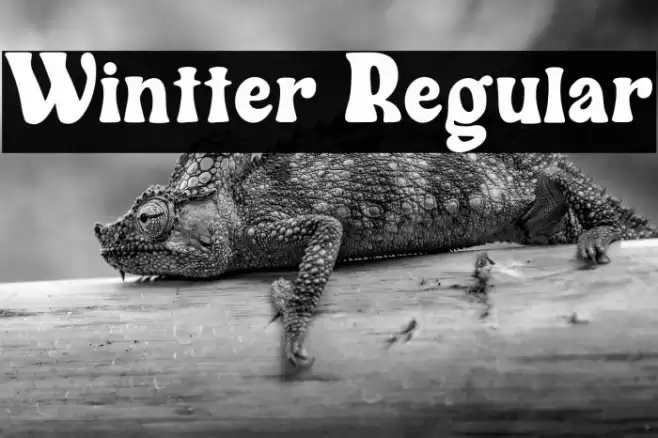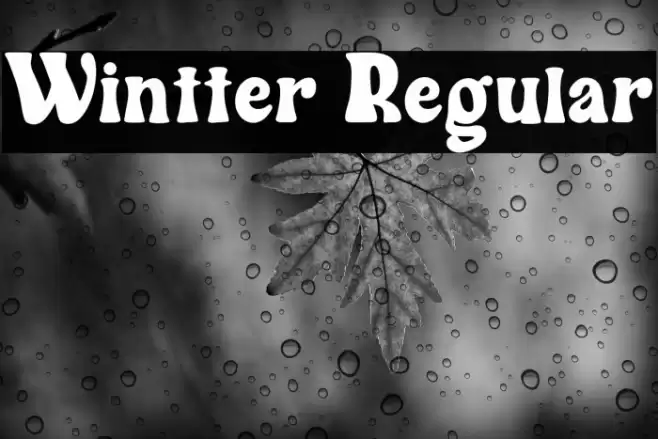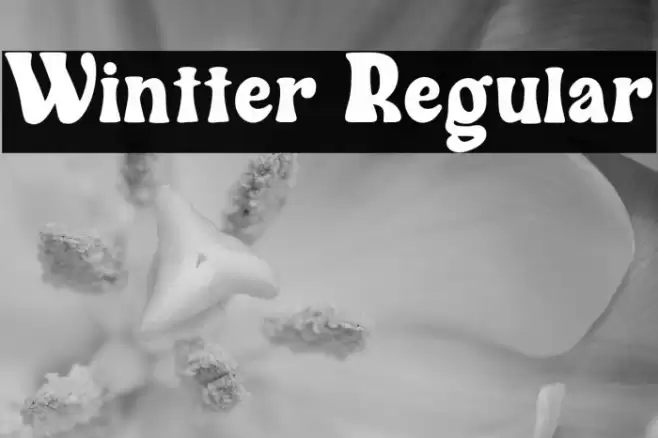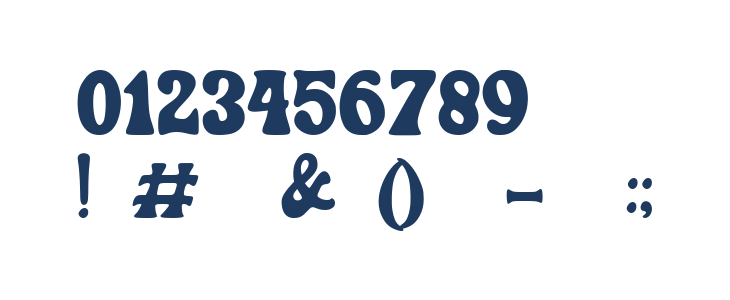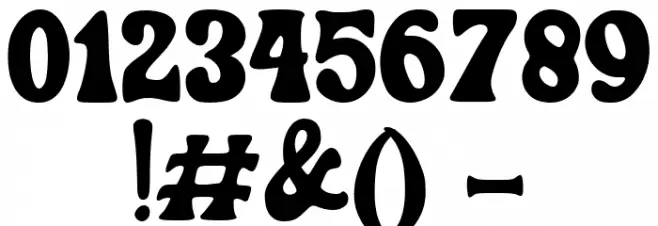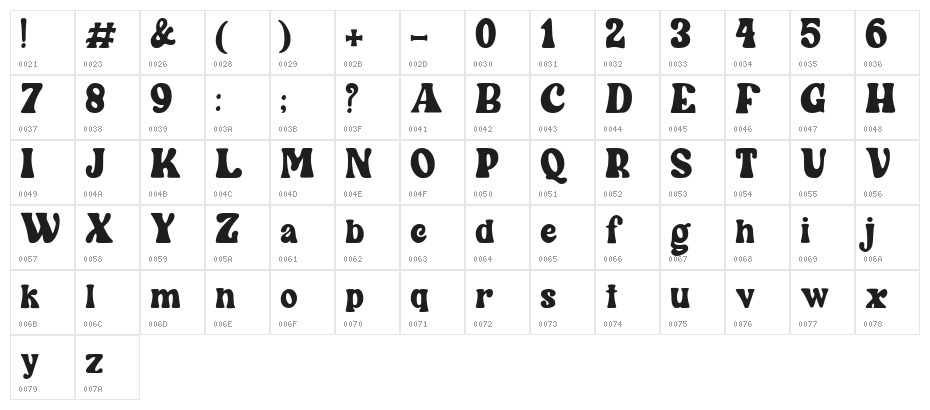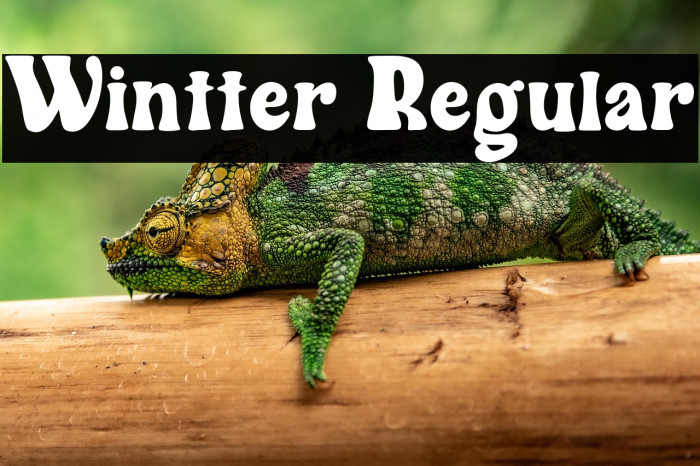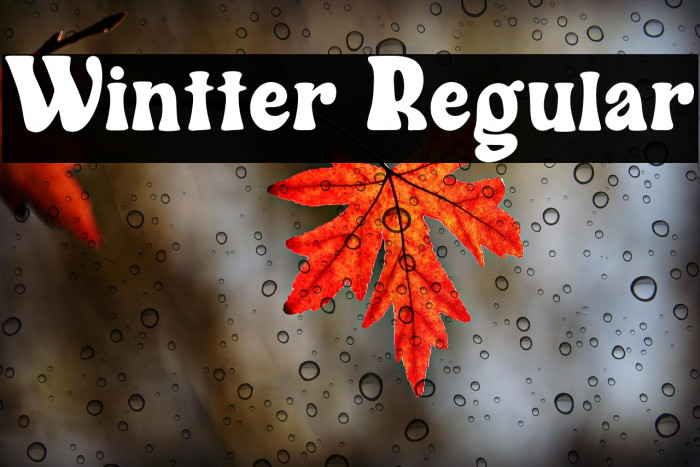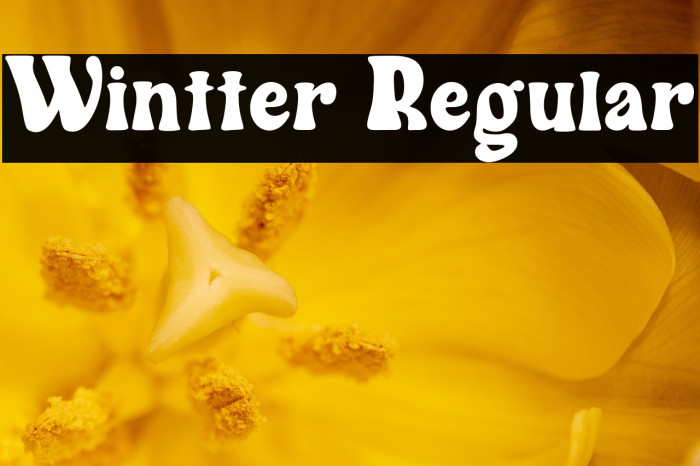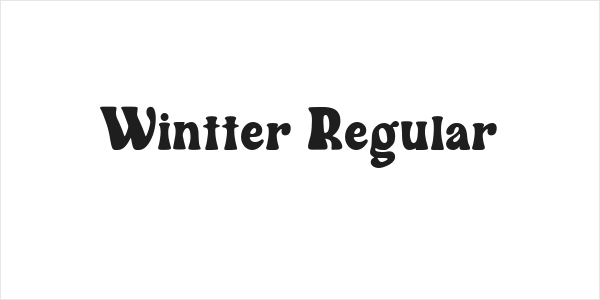
Wintter Regular Font
Wintter Regular Description
This font features a bold and playful design with thick, rounded strokes that give it a whimsical and friendly appearance. The characters are slightly condensed, enhancing the boldness and making it stand out in any design. The uppercase letters are particularly robust, while the lowercase letters maintain a consistent style with a touch of playfulness. The numbers and special characters follow the same design principles, ensuring uniformity across all glyphs. This font is ideal for creating eye-catching headlines or logos that require a fun and approachable look.
A bold, playful font with thick, rounded strokes and a whimsical style from Regular fonts.
- Proposed Projects: Ideal for children's books, playful branding, event posters, and creative logos.
- Overall Style: Playful, Whimsical